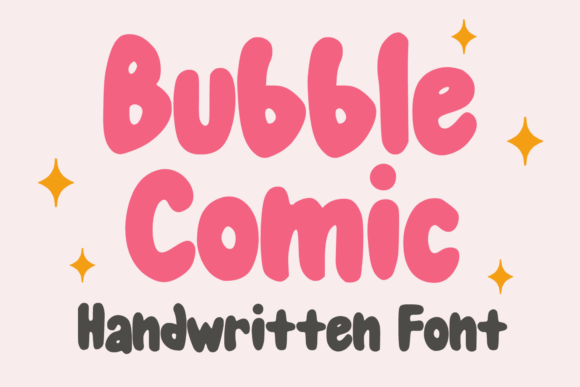
Bubble Comic Font: Elevate Your Designs with a Whimsical Touch
In the realm of typography, few fonts manage to capture the essence of playfulness and creativity as effectively as the Bubble Comic Font. This handcrafted gem, inspired by the vibrant world of comics and animations, brings a fresh and lively approach to graphic design. With its distinctive round strokes and charming demeanor, Bubble Comic is poised to become the go-to choice for designers seeking to infuse their projects with a dash of whimsy and fun.
The Genesis of Bubble Comic
Bubble Comic is more than just a font – it’s an experience. Born from the colorful pages of comics and the dynamic frames of animations, this font embodies the spirit of creativity and imagination. Its design is centered around the concept of ‘bubble’ letters, which are commonly found in comic books and cartoons. These letters, often encased in speech bubbles, are not just a stylistic choice but a narrative device that adds a layer of engagement and personality to the story being told.
The creator of Bubble Comic poured their heart and soul into crafting a font that would not only pay homage to the comic and animation industry but also offer a versatile tool for designers. The result is a font that is both a nod to the classics and a modern take on playful typography.
Characteristics of Bubble Comic Font
So, what makes Bubble Comic stand out in the vast sea of fonts available today? Here are a few key characteristics:
- Whimsically Versatile: Bubble Comic is designed to adapt to various design needs. Whether you’re working on a sticker, a t-shirt, a logo, a book cover, or a cartoon illustration, this font fits right in.
- Handcrafted with Love: The meticulous care put into crafting each letterform gives Bubble Comic its unique charm. It’s not just a font; it’s a piece of art.
- Vivacious Round Strokes: The round strokes used in Bubble Comic give it a soft, friendly appearance. This feature makes it incredibly approachable and engaging.
- Comic-Centric Roots: Its origins in the comic world make it perfect for projects that require a touch of playfulness and adventure.
Applications of Bubble Comic Font
The versatility of Bubble Comic Font makes it suitable for a wide range of applications. Here are some of the areas where this font truly shines:
- Sticker Concepts: Add a fun and bubbly touch to your stickers with this font. It’s perfect for creating eye-catching and engaging stickers for kids’ parties, events, or even as promotional materials.
- T-Shirt Creation: Stand out with custom t-shirts that feature bold and playful designs. Bubble Comic is great for creating fun and quirky text that will make any t-shirt design pop.
- Logo Development: For brands looking to convey a sense of fun, youthfulness, and approachability, Bubble Comic can be a fantastic choice for logo design.
- Book or Magazine Covers: Give your publication a vibrant and inviting look with this font. It’s especially effective for children’s books, comics, and lifestyle magazines.
- Cartoon Illustrations: When working on illustrations that require dialogue or captions, Bubble Comic can seamlessly integrate into your artwork, enhancing its comic book feel.
The Impact of Using Bubble Comic Font
Incorporating Bubble Comic into your designs can have a profound impact on how your work is perceived. Here are a few ways this font can elevate your designs:
- Enhanced Engagement: The playful nature of Bubble Comic can make your designs more engaging and enjoyable to interact with. This is particularly beneficial for projects aimed at a younger audience.
- Unique Brand Identity: For businesses, using a distinctive font like Bubble Comic can help in creating a unique brand identity that stands out from the competition.
- Emotional Connection: The whimsical and friendly appearance of this font can help create an emotional connection with the viewer, making your message more relatable and memorable.
Tips for Maximizing the Potential of Bubble Comic Font
To get the most out of Bubble Comic, consider the following tips:
- Experiment with Colors: Don’t be afraid to play around with different colors. The font’s bubbly nature pairs well with bright and pastel colors, adding to its playful vibe.
- Mix and Match: Combine Bubble Comic with other fonts for interesting contrasts. A bold, playful font like Bubble Comic can be paired with a more straightforward font for a balanced look.
- Consider Context: While Bubble Comic is versatile, it’s essential to consider the context in which it’s used. Ensure that the font aligns with the overall theme and message of your project.
Bubble Comic Font is a delightful addition to the world of typography. Its whimsical design, rooted in the charm of comic and animation aesthetics, offers a fresh perspective for designers looking to infuse their work with a sense of playfulness and creativity. Whether you’re working on a children’s book, a cartoon illustration, or a fun promotional item, Bubble Comic is sure to leave a lasting, sprightly impression. Embrace the super-cool essence of Bubble Comic and watch your designs soar to new heights of creativity and engagement.